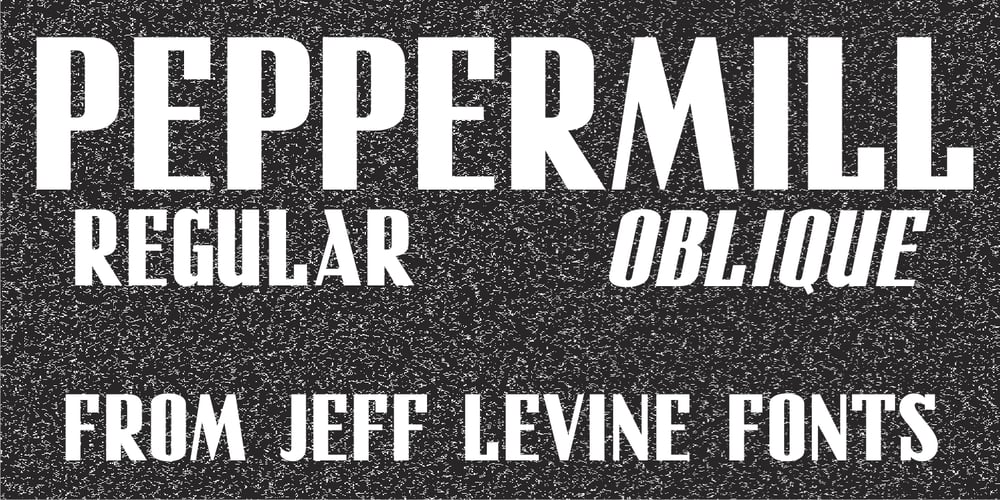
Peppermill JNL Font Family was designed by Jeff Levine and published by Jeff Levine. Peppermill JNL contains 2 styles and family package options. A bold sans serif with occasional rule-breaking vertical serifs on some characters was found within page examples from the book “100 Alphabets Publicitaires” (“100 Advertising Alphabets”). Although a few of those vertical serifs extended above the cap height in the hand lettering, they were made more uniform to keep a consistency in the digital version known as Peppermill JNL. Available in both regular and oblique versions.